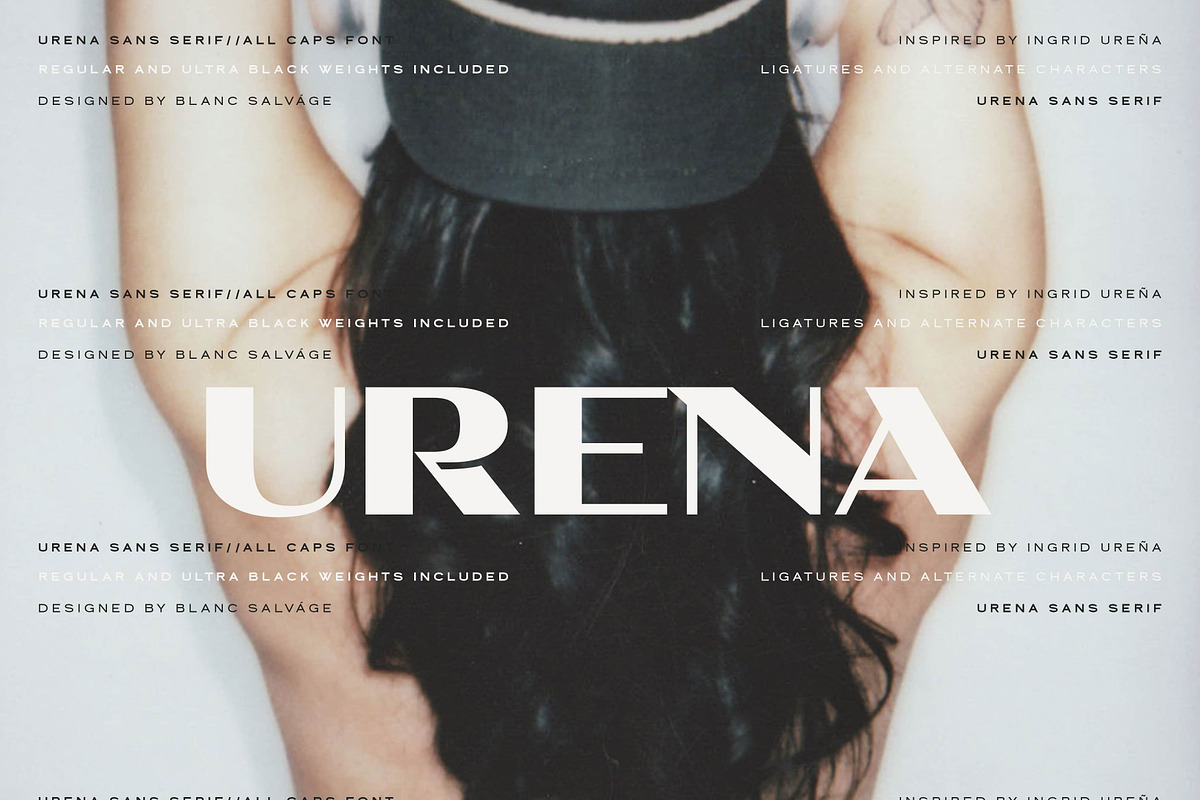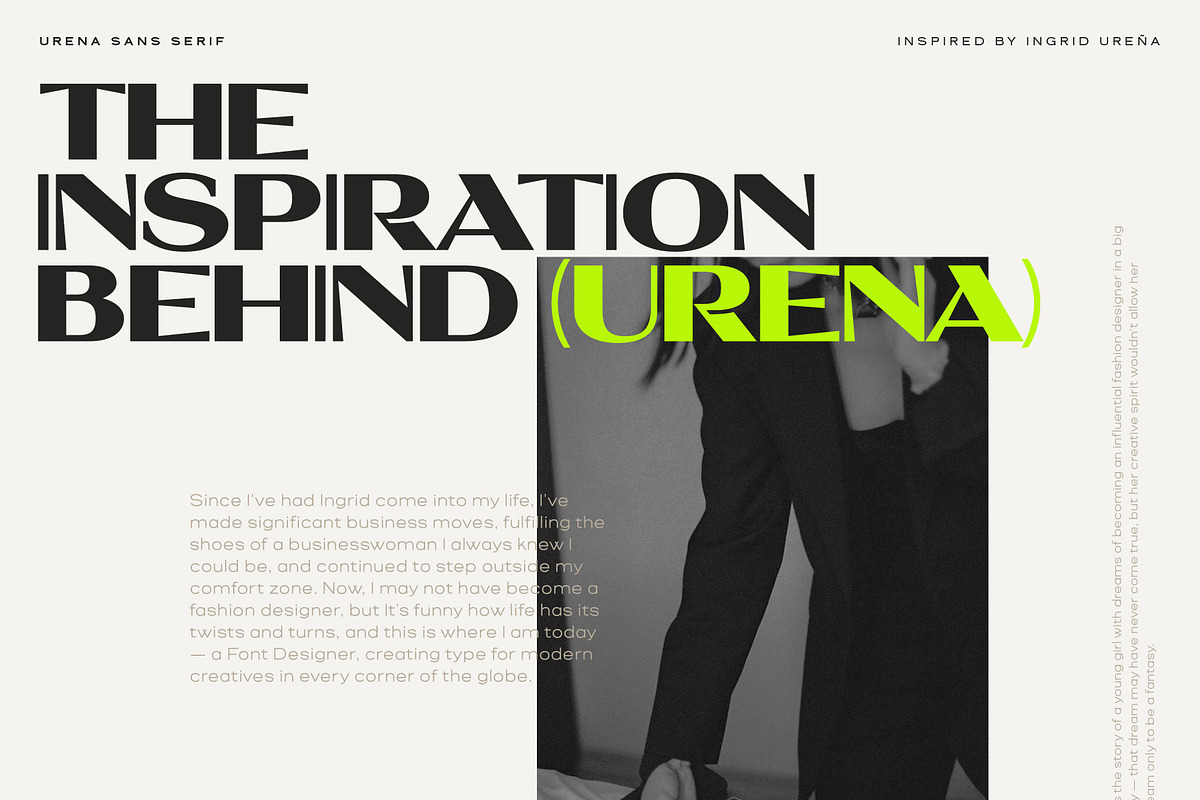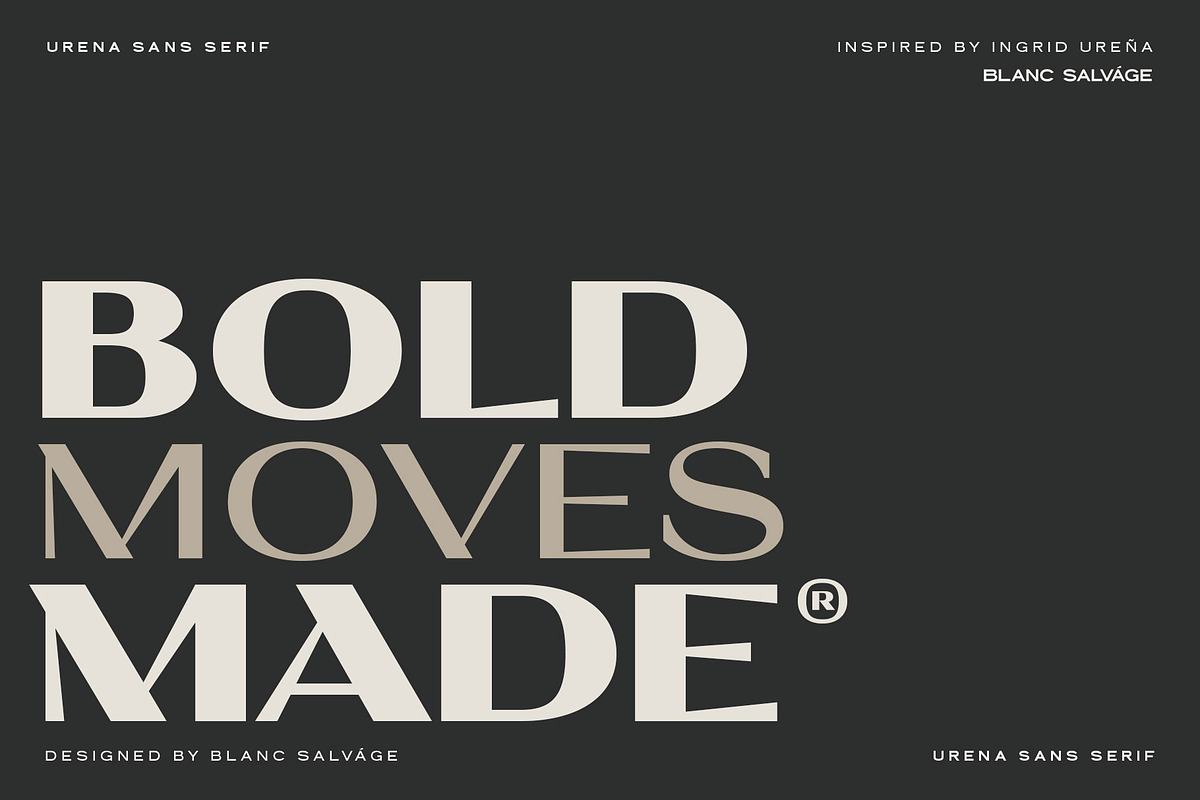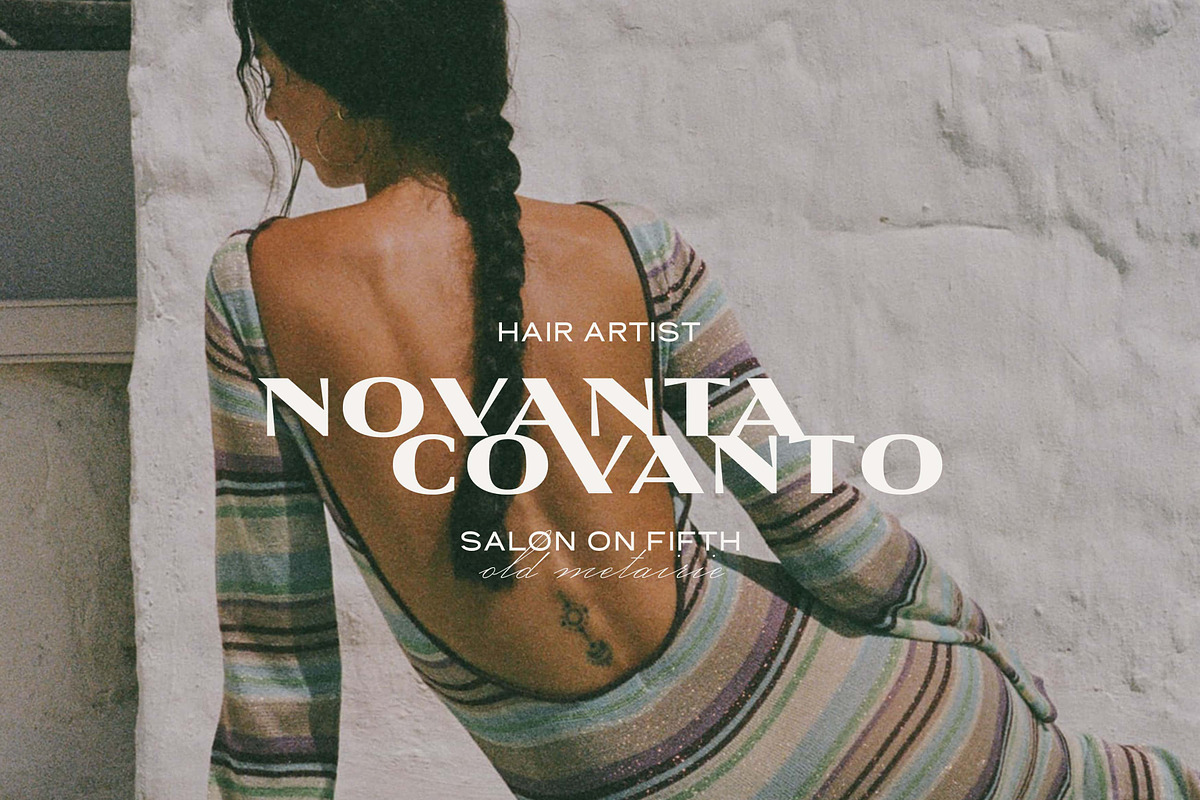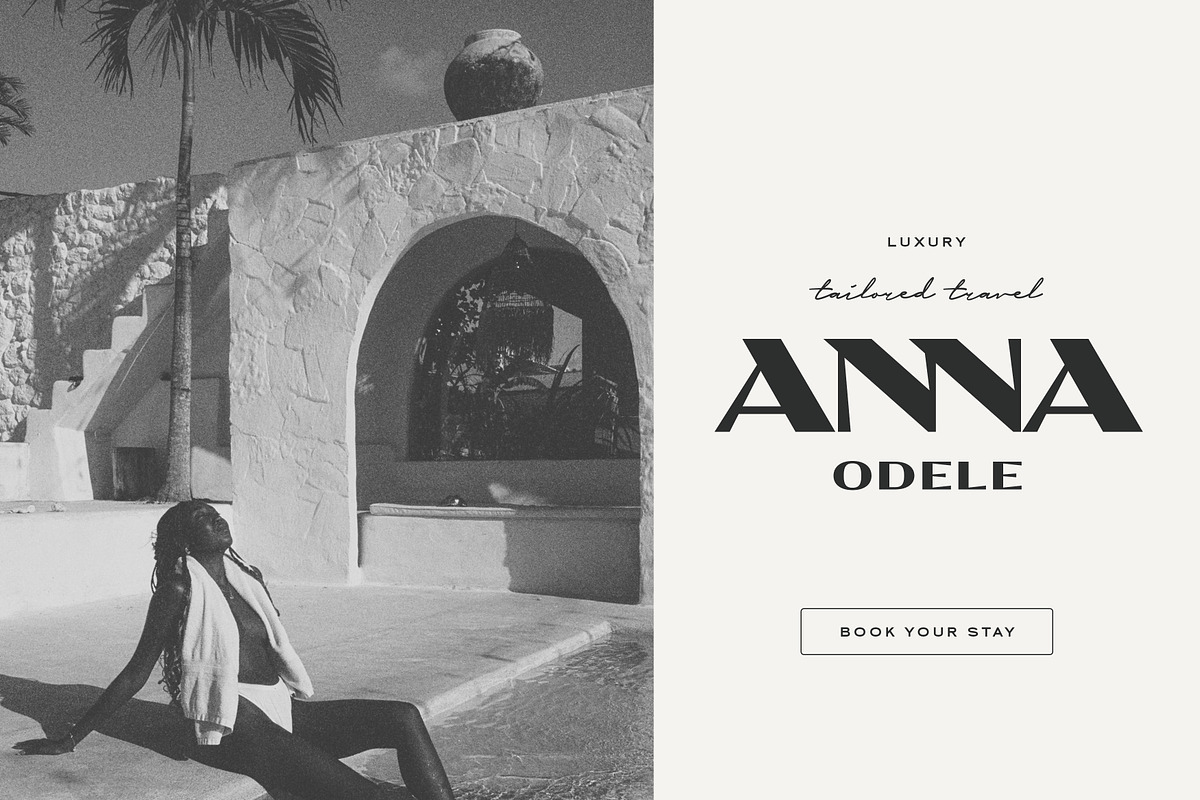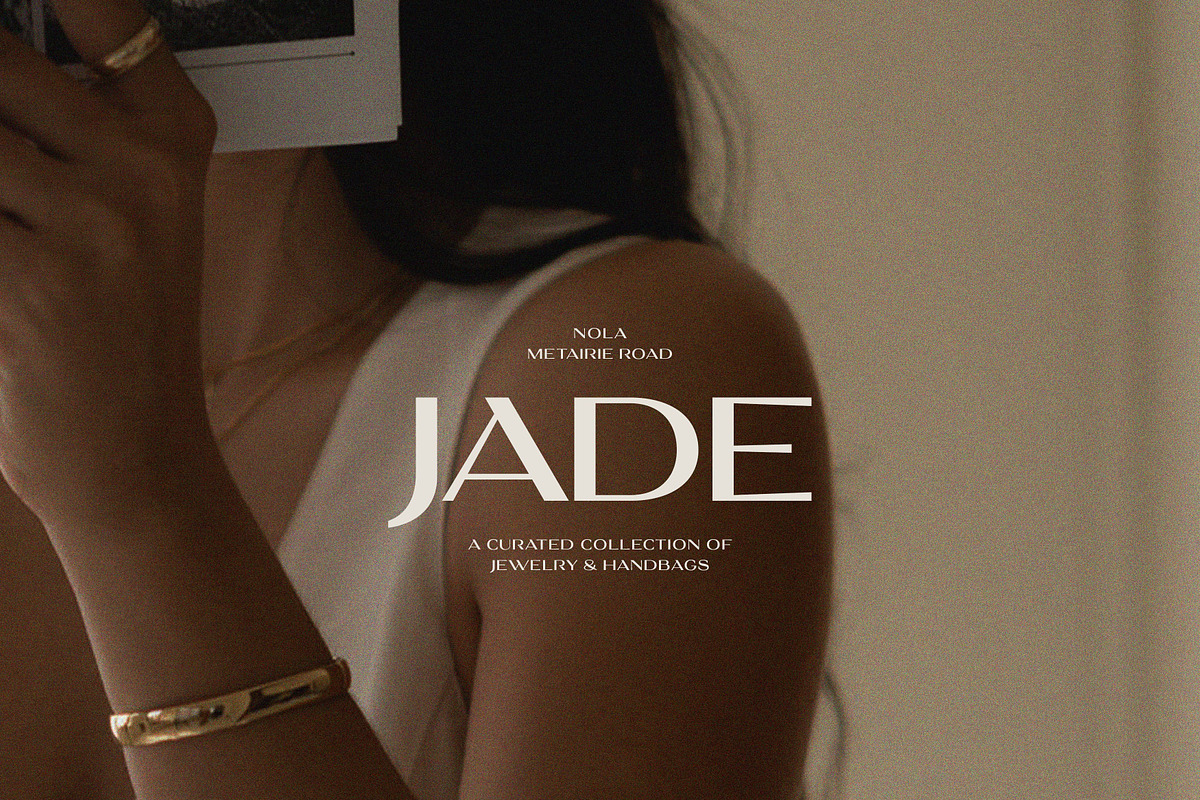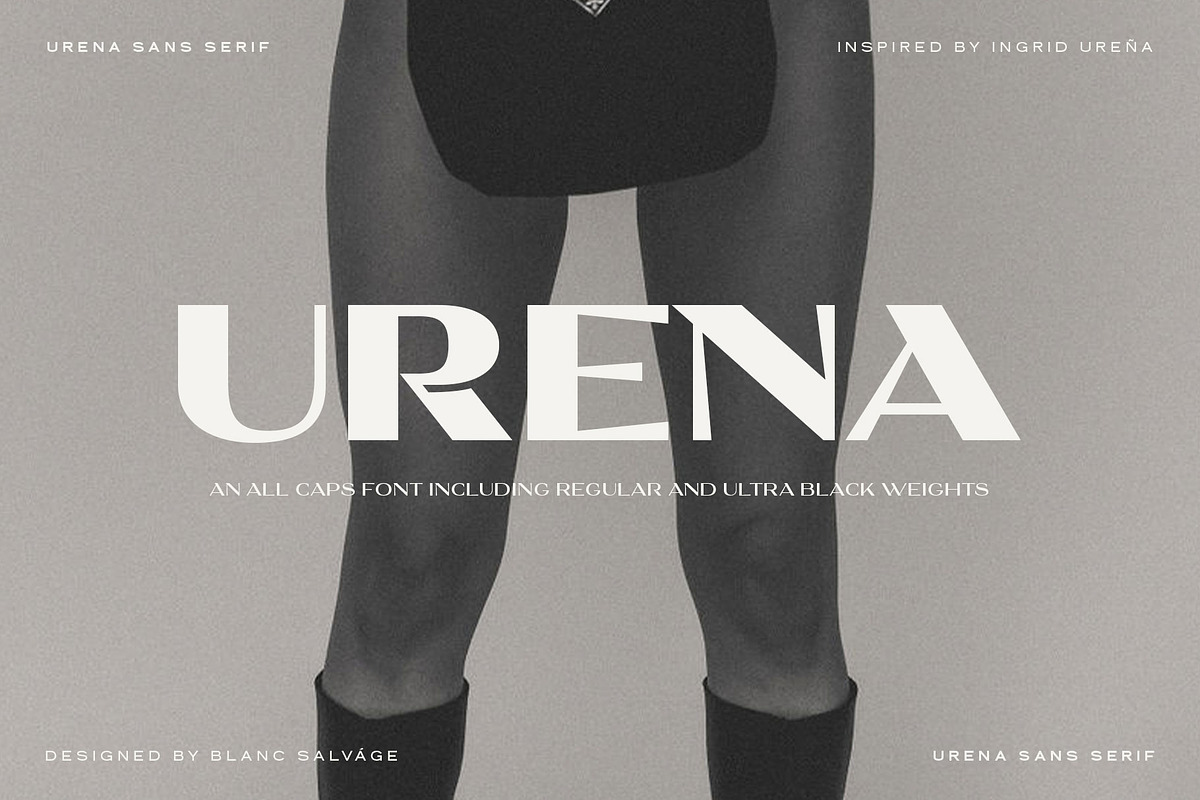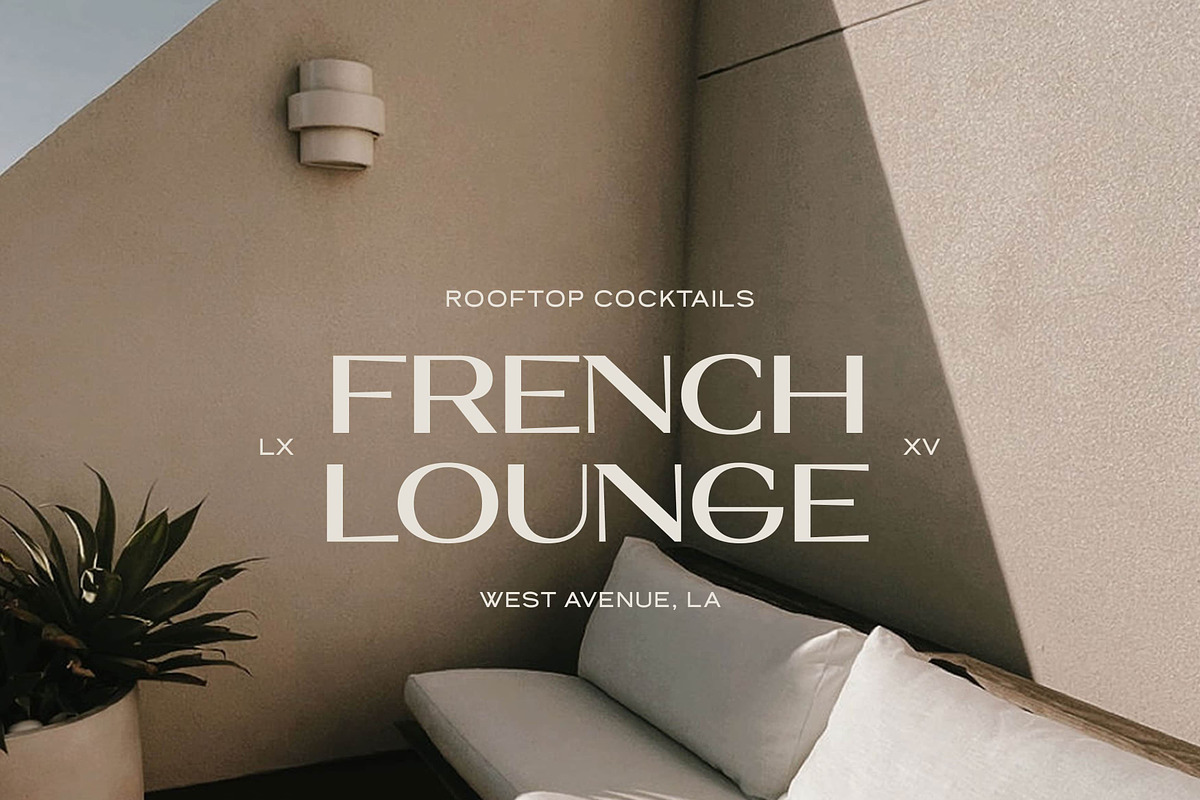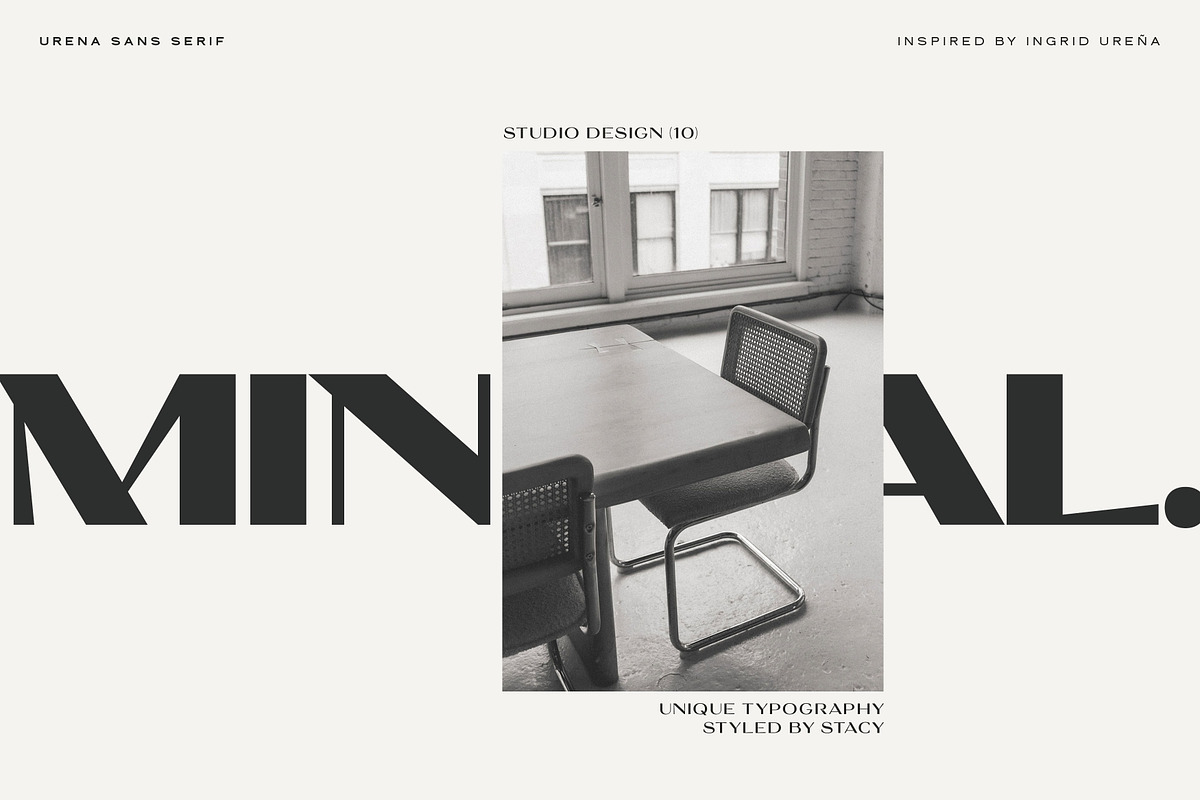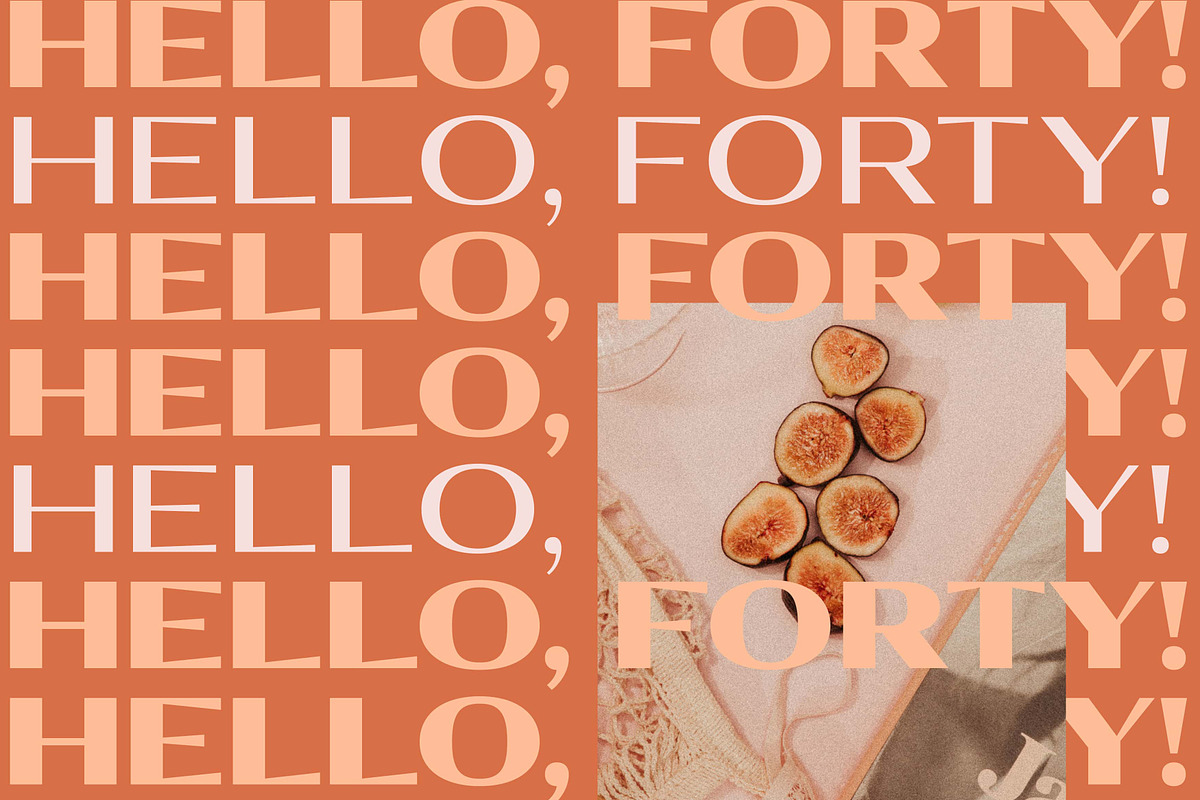
Urena Ultra Wide Sans Serif
Introducing Urena — an ultra-wide font overflowing with versatility from feminine to masculine with her regular and ultra black weights; she's crafted from a story of my personal life of becoming a business owner and how my younger life influences how I design type.
Expressing a shift in tone, mood, and design — flawlessly mirroring the transformation we require in our designs.
Urena is designed for projects that call for a bold statement as well as a shift in mood to a delicate sophistication with her lighter weight – whether it's a chic brand identity, a bold magazine layout, or a striking web design. Utilizing her various weights creates a unique sense of style; let her be your latest font obsession.
Brands Urena sans serif would be perfect for are: Salons Hair products Beauty Fashion
Urena (uppercase)
Numbers and punctuation
Foreign language support
Alternate characters